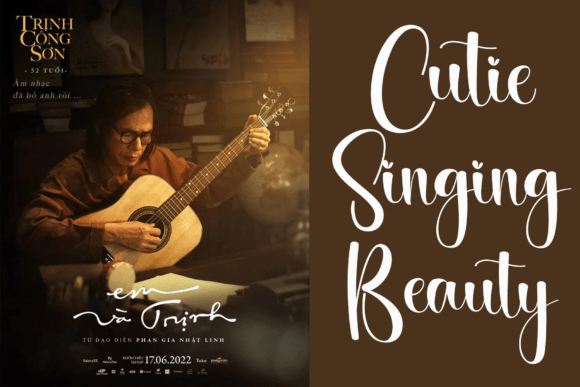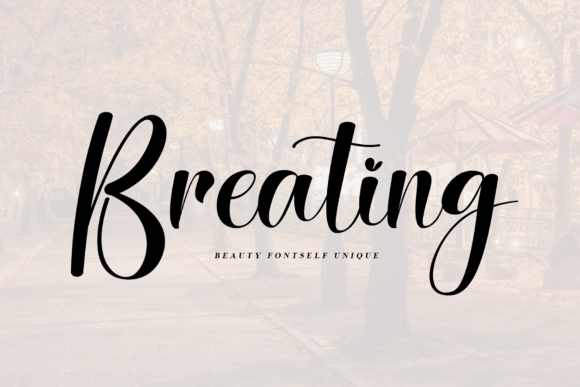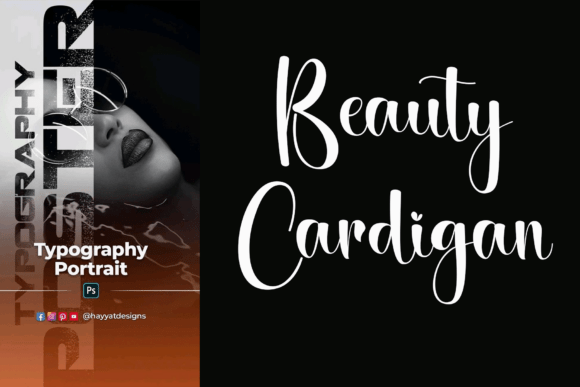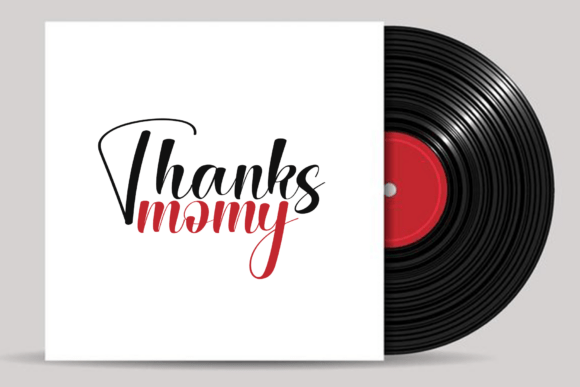
Unlock the Magic of Handwritten Design with Highquality Font
There’s nothing quite like the thrill of creating something from scratch – the blank canvas, the blank page, the blank mind. As a designer, you know that feeling all too well. It’s the moment when everything comes together, and your idea starts to take shape. For me, that moment often starts with the right font. And when it comes to handwritten fonts, there’s one that stands out from the rest: Highquality Font.
| 👤 Author | Sansana |
This lovely and timeless font is a designer’s dream come true. With its unique and beautiful touch, it brings any design to life. Whether you’re creating an eye-catching logo, a stunning brand, or a heartfelt quote, Highquality Font is the perfect choice. Its versatility and elegance make it a valuable asset for any designer looking to elevate their work.
Key Features of Highquality Font
- Unique Character Set: Includes a wide range of characters, including Latin, Cyrillic, Greek, and special characters, making it suitable for multilingual applications.
- Advanced Typography: Features advanced typography capabilities, including ligatures, swashes, and stylistic sets, for added visual flair and sophistication.
Designer Review: Highquality Font
Overall, I’d say Highquality Font is a decent addition to any designer’s toolkit, but it’s not without its flaws. Here’s what I think works well: ✨
- ✨ The font’s high level of detail and intricate designs make it perfect for headlines and titles.
- ✨ It’s highly customizable, with plenty of options for adjusting size, color, and style.
- ✨ Highquality Font supports a wide range of languages, making it a great choice for international projects.
- ⚠️ The font can be quite slow to load, especially on lower-end devices.
- ⚠️ Some users may find the font’s intricate designs overwhelming or difficult to read at smaller sizes.
- ⚠️ The font’s customization options can be overwhelming for beginners.
Overall, I’d give Highquality Font 3.5 out of 5 stars. While it’s a great choice for certain projects, its limitations may make it less suitable for others. With a bit more optimization and refinement, I think Highquality Font could be a top contender in the design world.
Getting the Most Out of High Quality Font
To get the most out of High Quality Font, use it for:
1. Headings and titles, where a clear and readable font is essential.
2. Body text, where a high-quality font can improve readability and engagement.
3. Branding and identity, where a unique and consistent font can enhance your brand’s image.
High Quality Font is commonly used for:
1. Business presentations and